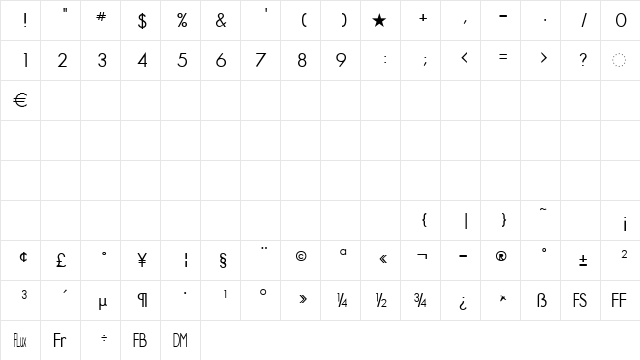
EuroMatchUnregistered Regular Font Preview
EuroMatchUnregistered Regular
EuroMatchUnregistered Regular Font Details
Design Context for EuroMatchUnregistered Typeface
EuroMatchUnregistered takes a measured approach to typography — its balanced proportions and neutral character make it a reliable workhorse for both digital and print work.